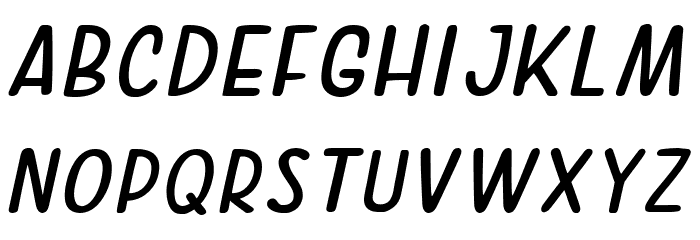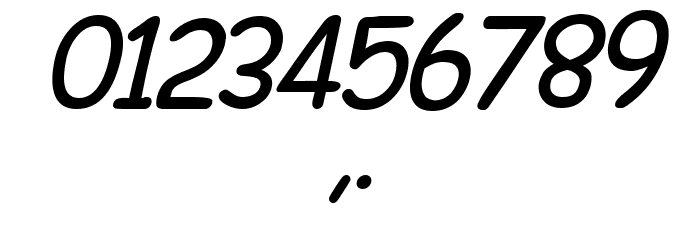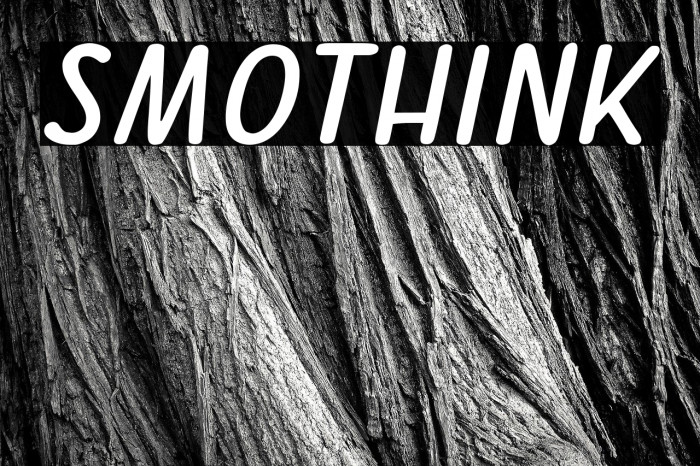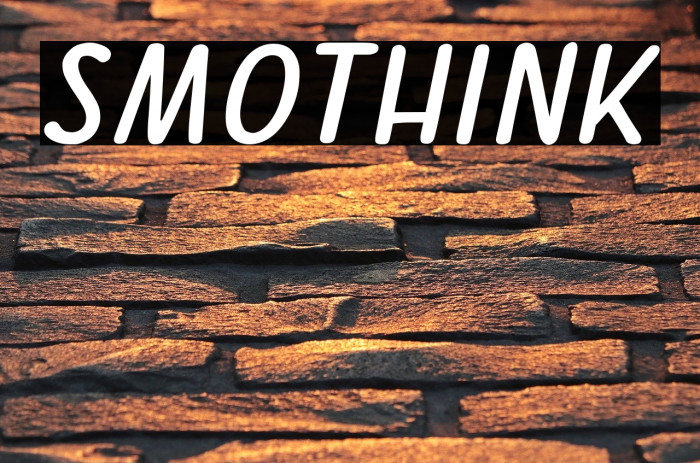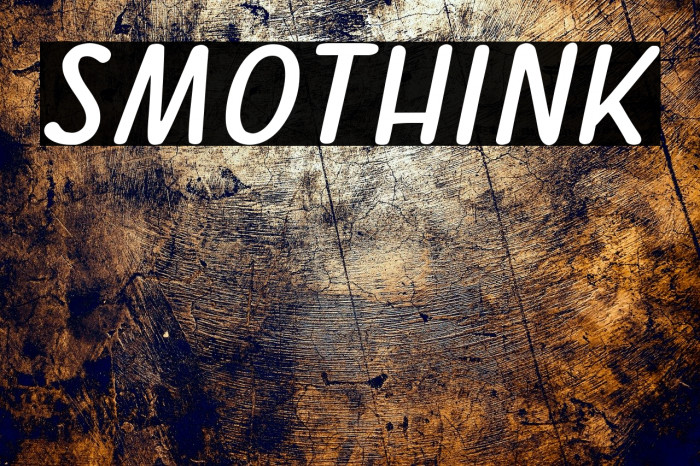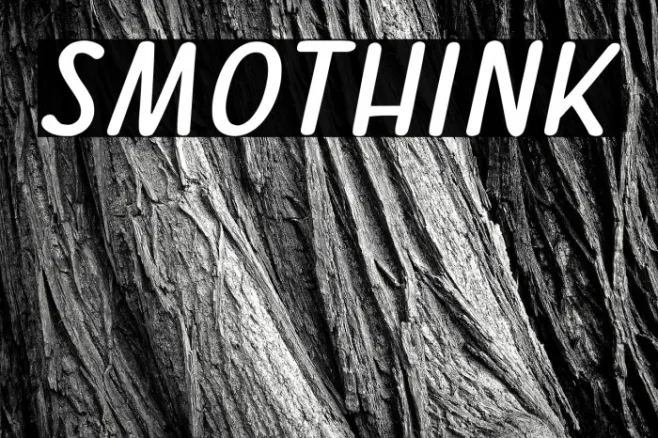
SMOTHINK Font
This font features a smooth, rounded style with a slight slant, giving it a casual and approachable appearance. The characters are consistently curved, with a uniform stroke width that maintains readability across both uppercase and lowercase letters. The numerals follow the same design principles, ensuring a cohesive look throughout. The font's design is clean and modern, making it versatile for various applications. Its simplicity and elegance are enhanced by the subtle italicization, which adds a dynamic feel without compromising legibility. The character spacing is balanced, providing a comfortable reading experience.
A smooth, rounded font with a slight slant, offering a casual and approachable style.
- Proposed Projects: Ideal for branding, advertising, packaging, and digital media where a friendly and modern aesthetic is desired.
- Use Case: Logos, Headlines, Digital Media